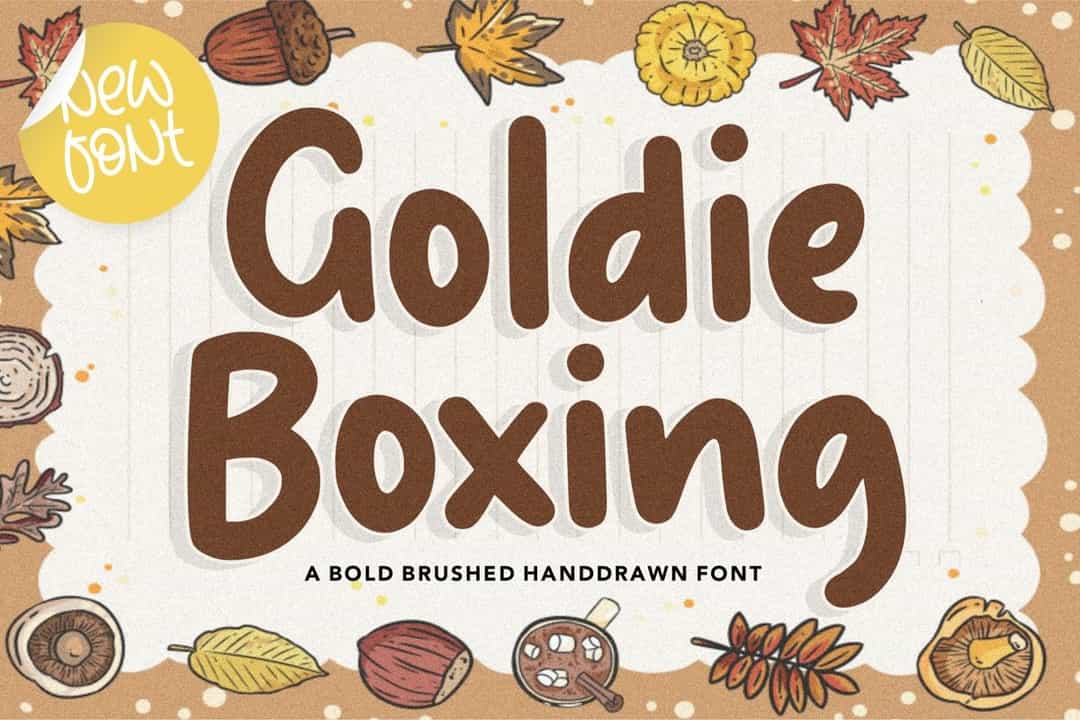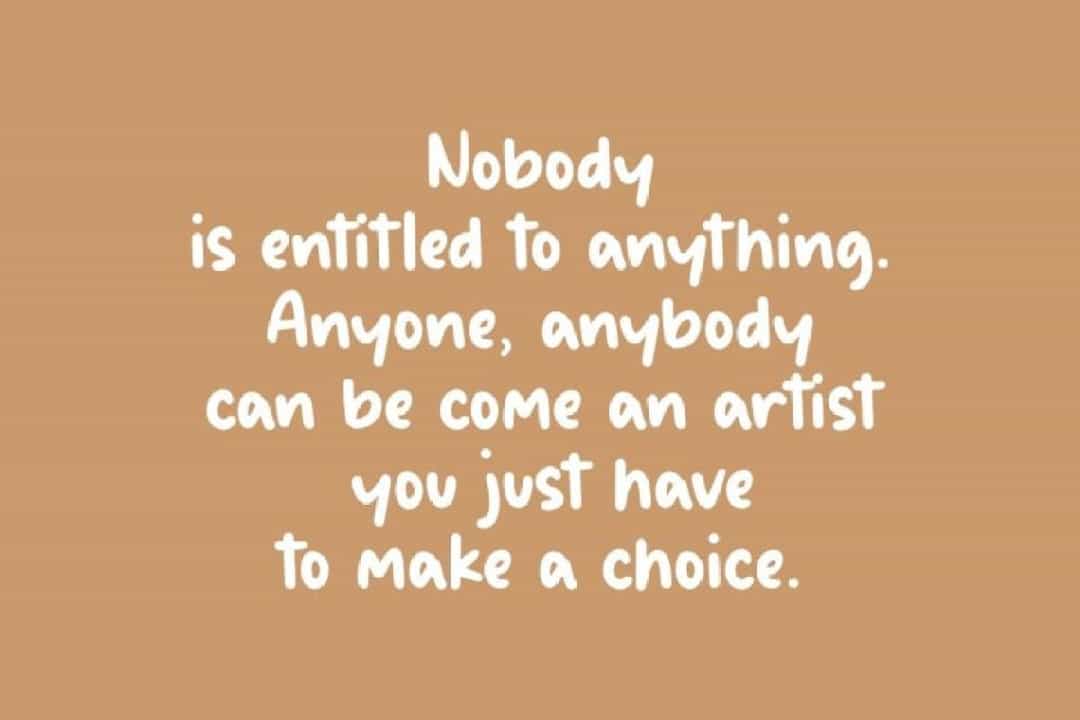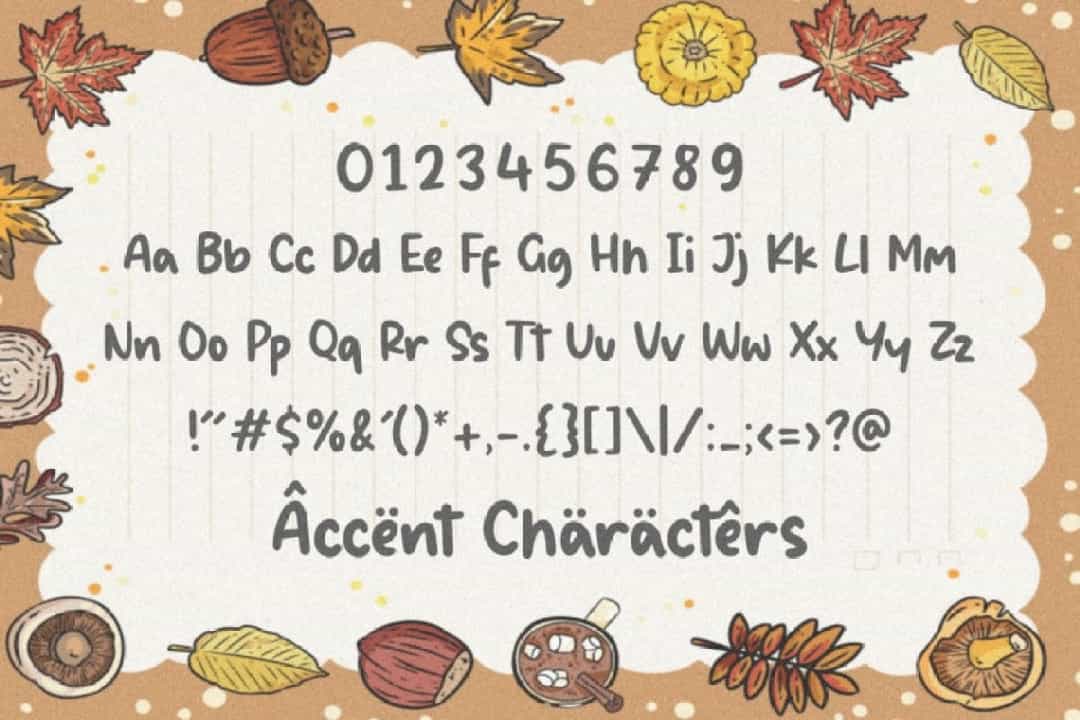
Goldie Boxing is a typed font, artwork style with the appearance of handwritten, the letter shapes are quite thick. It is suitable for any purpose ranging from packaging of products, branding projects, magazine, wedding, social media posts or when one wants to convey a message to the reader regardless of the background and it has the TTF format and multilingual support.